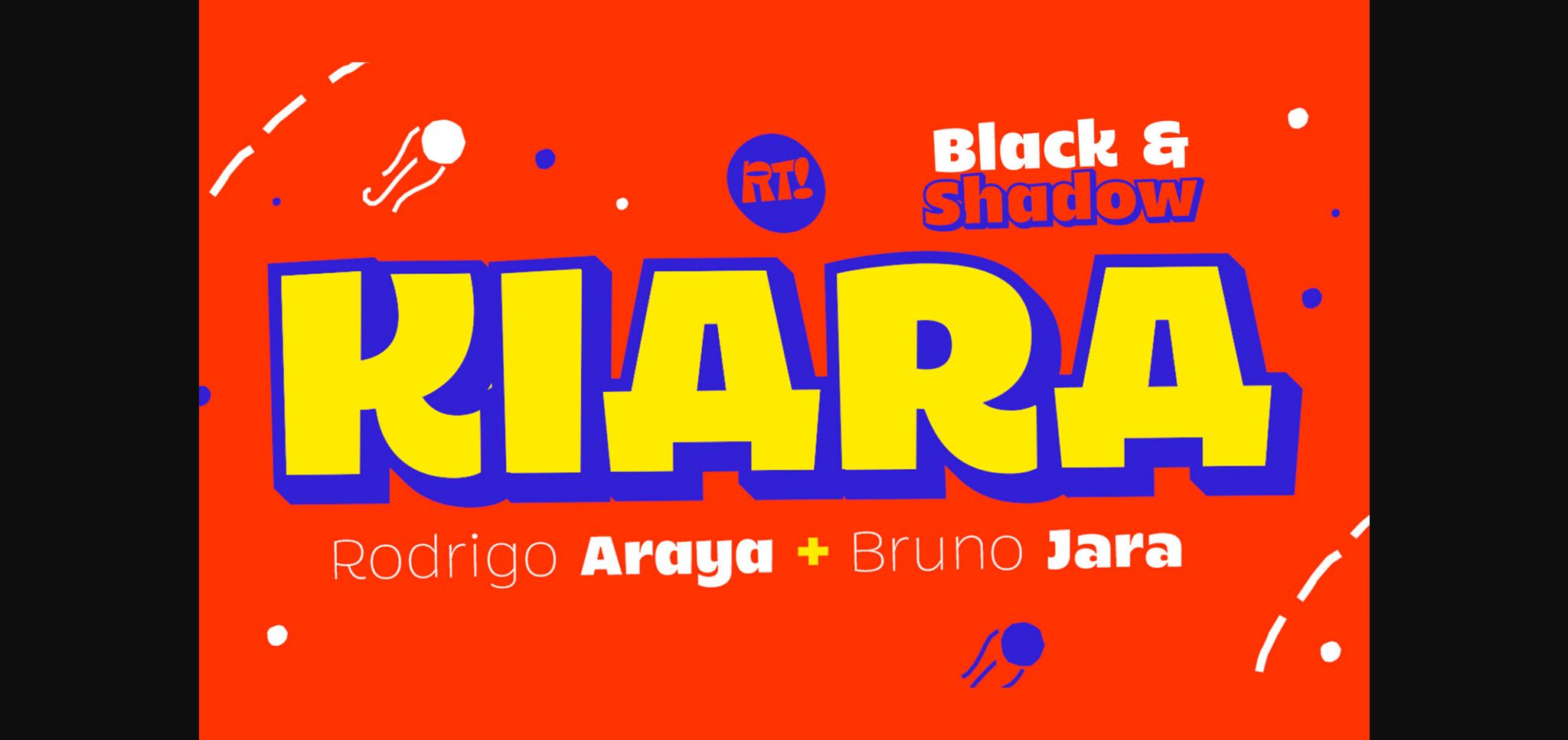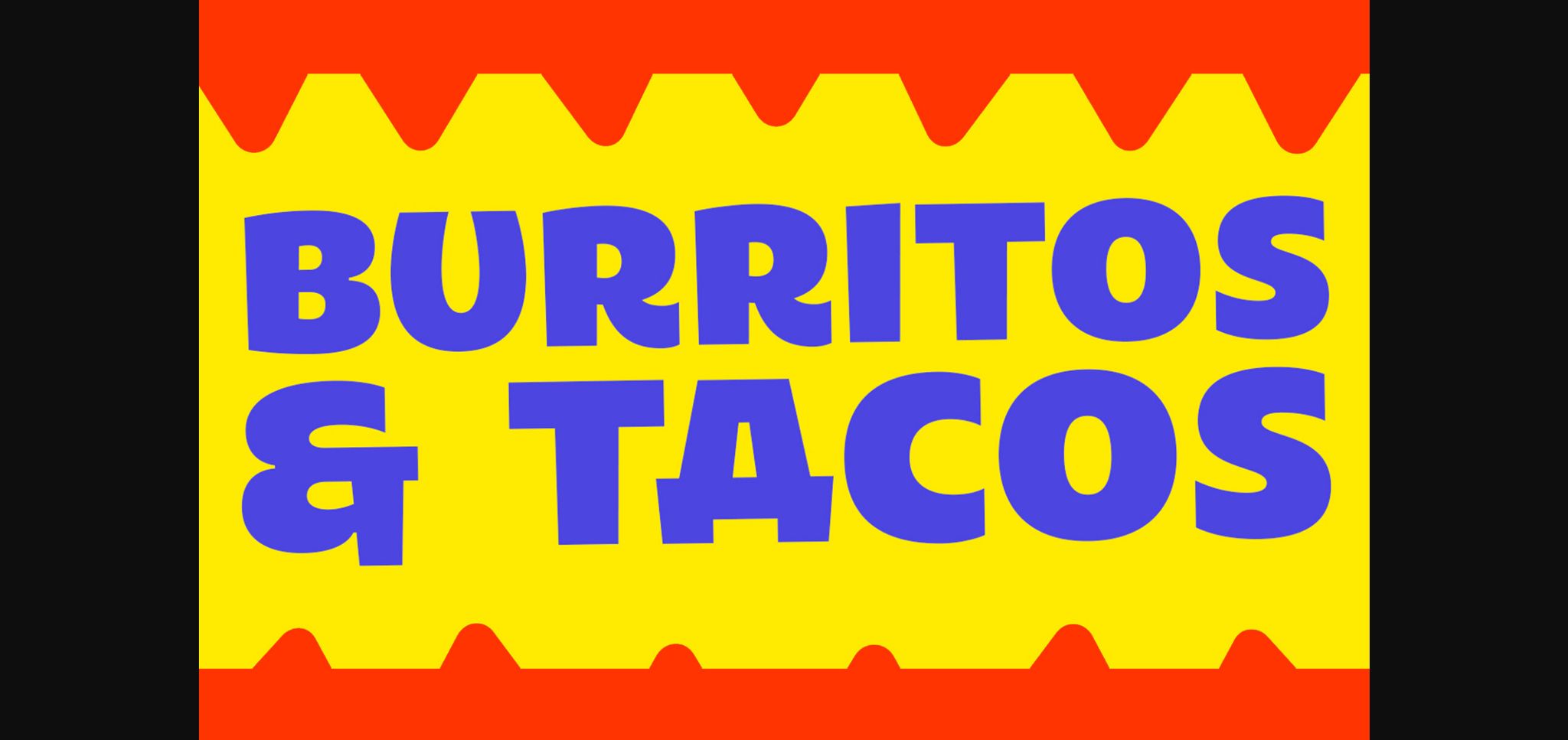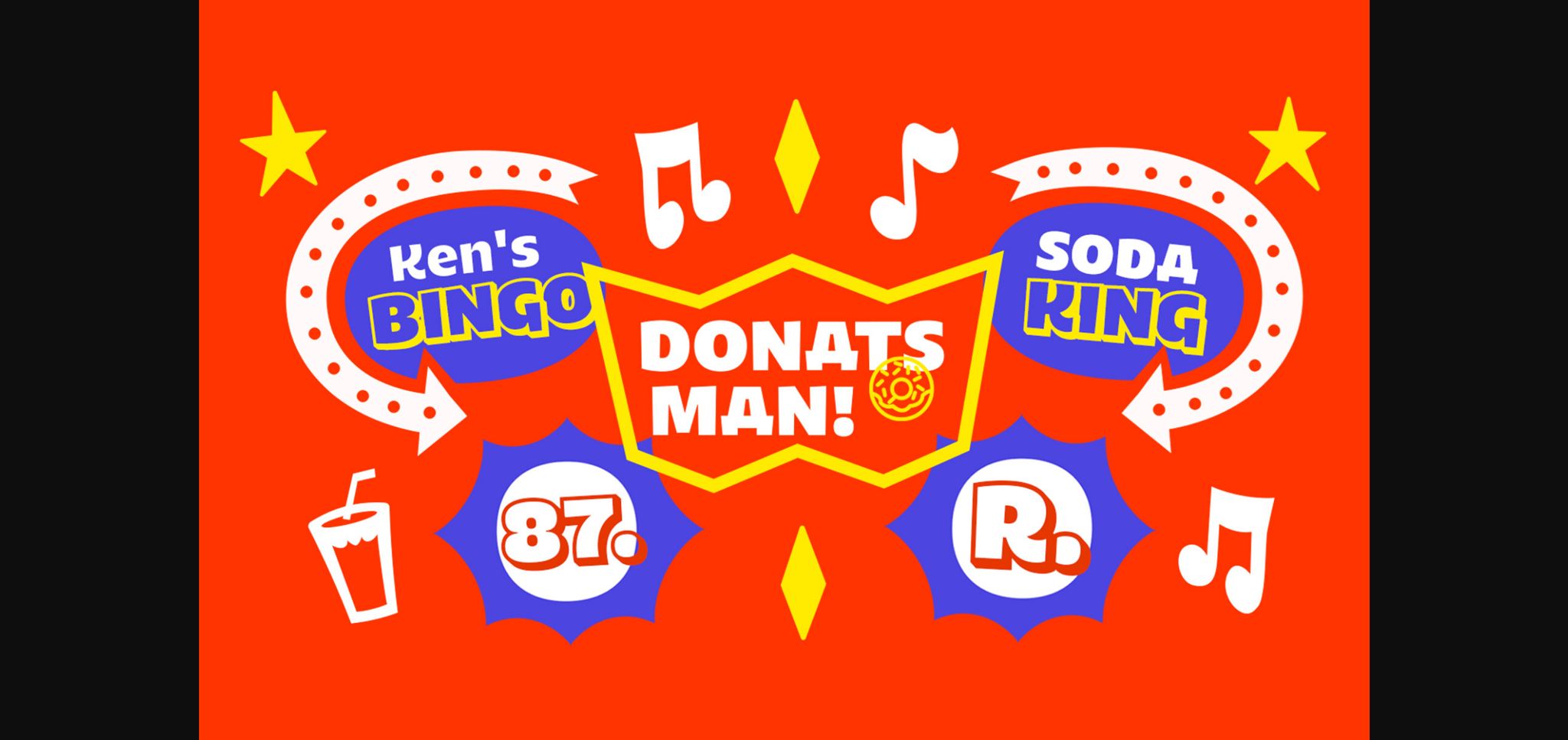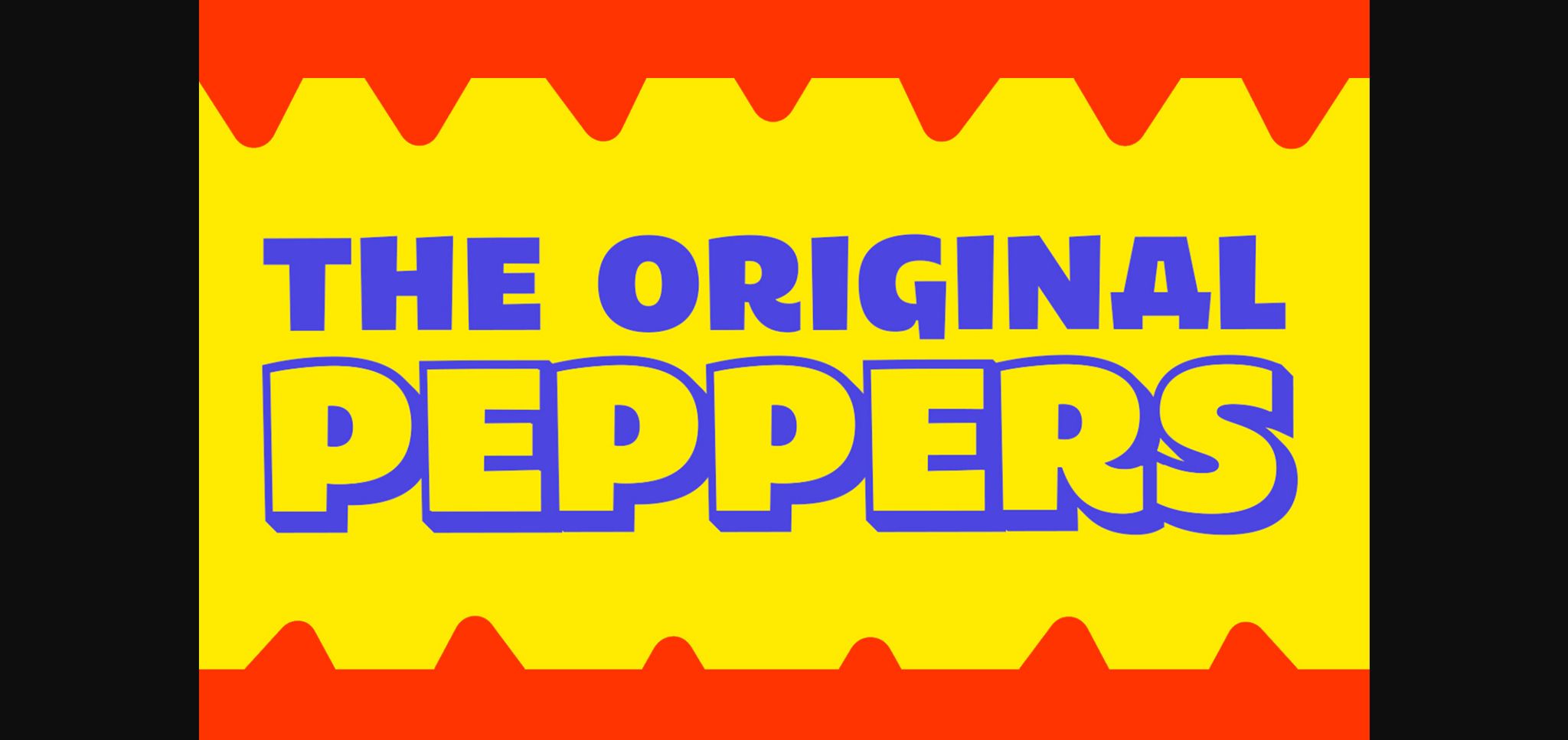
The Kiara typeface is a typeface designed for informal titles with very expressive letters. Use it confidently in your creation and you will notice the incredible touches it can add to your creations.